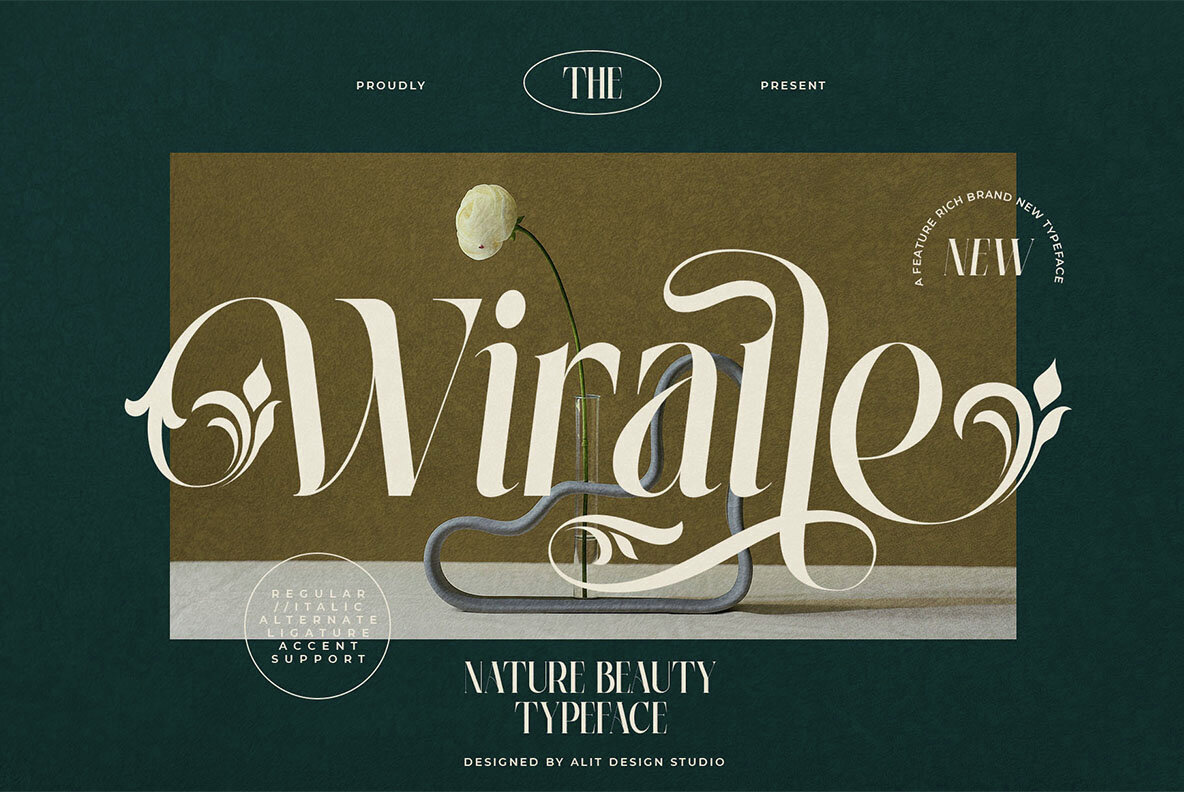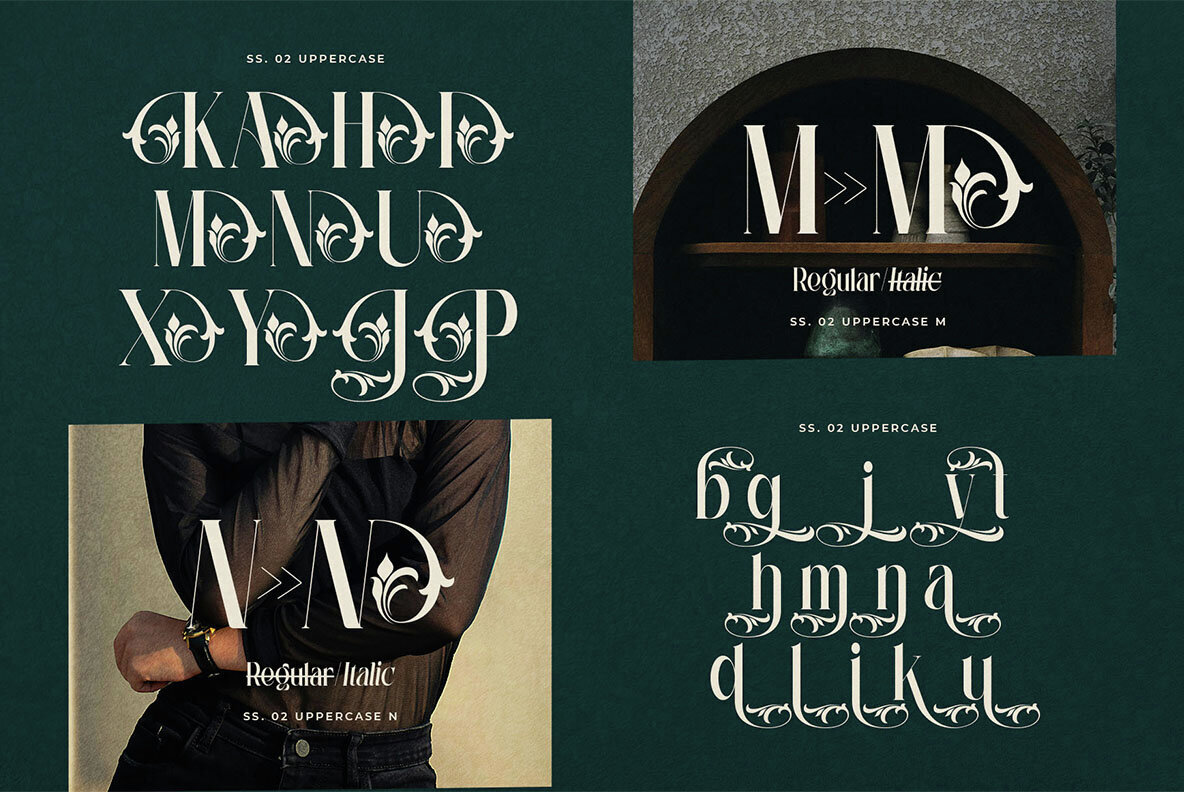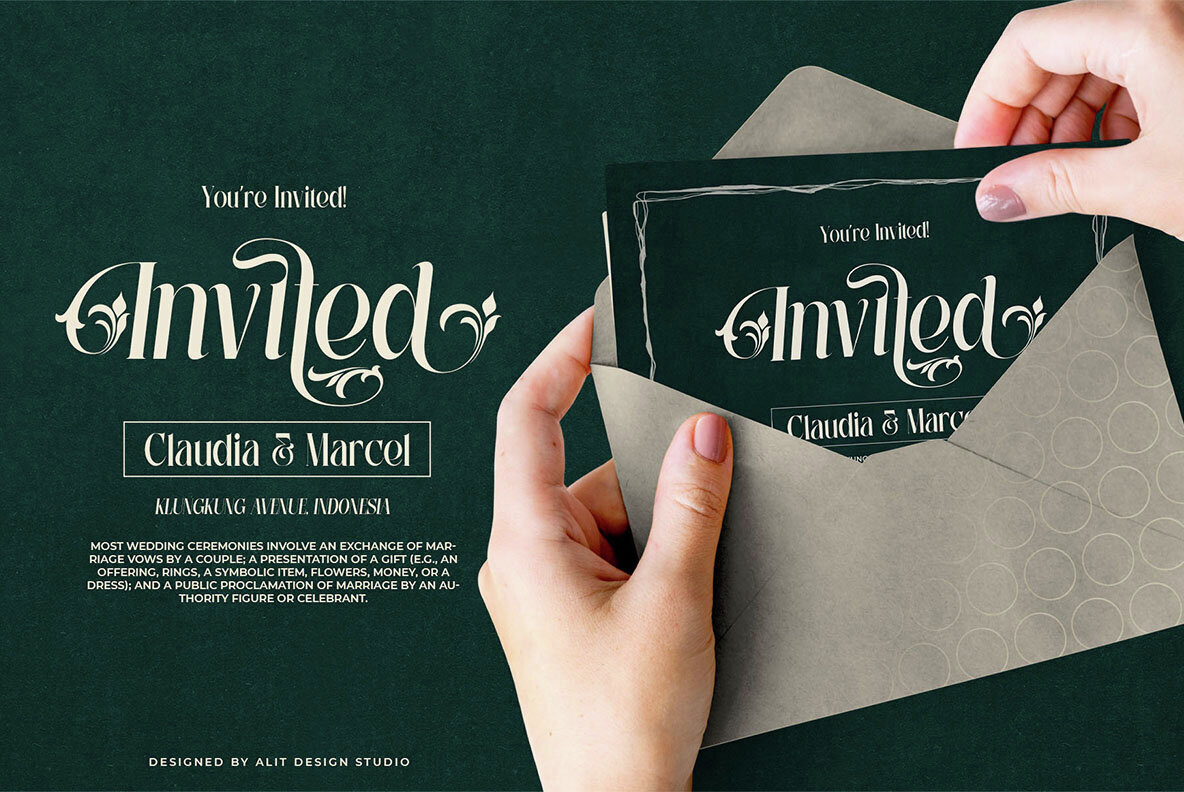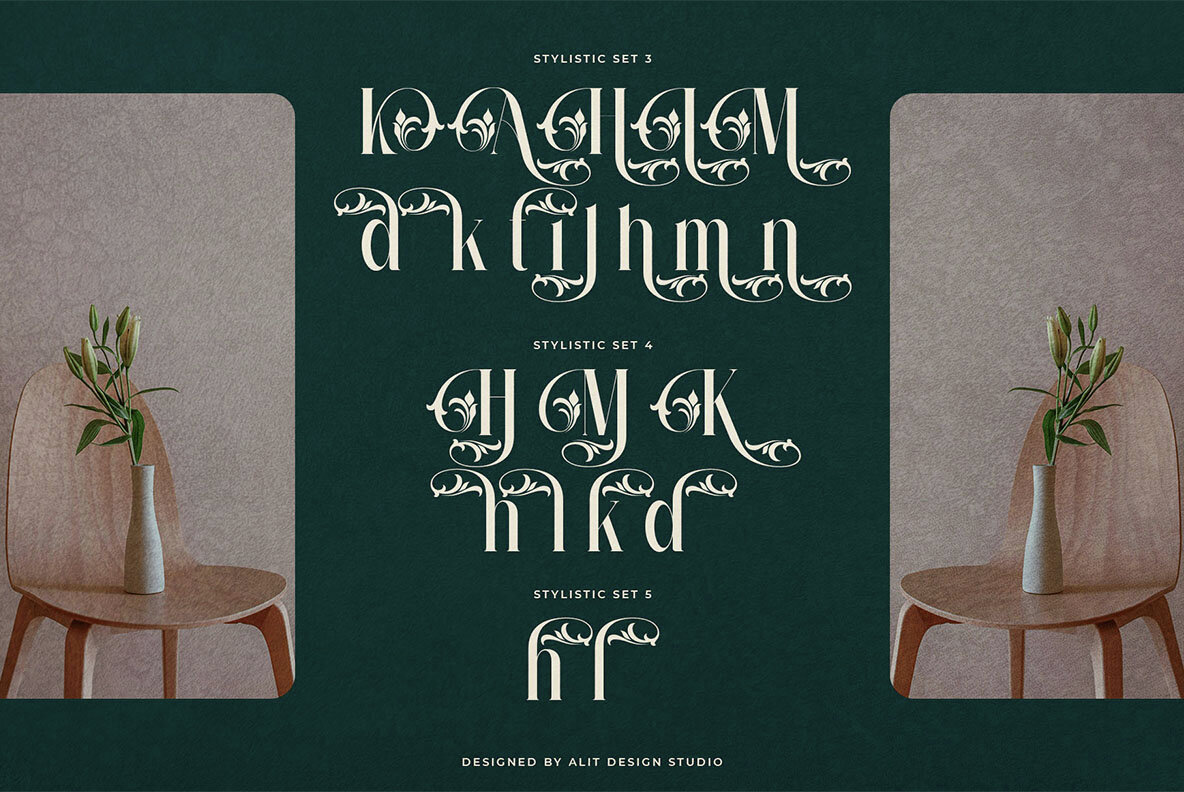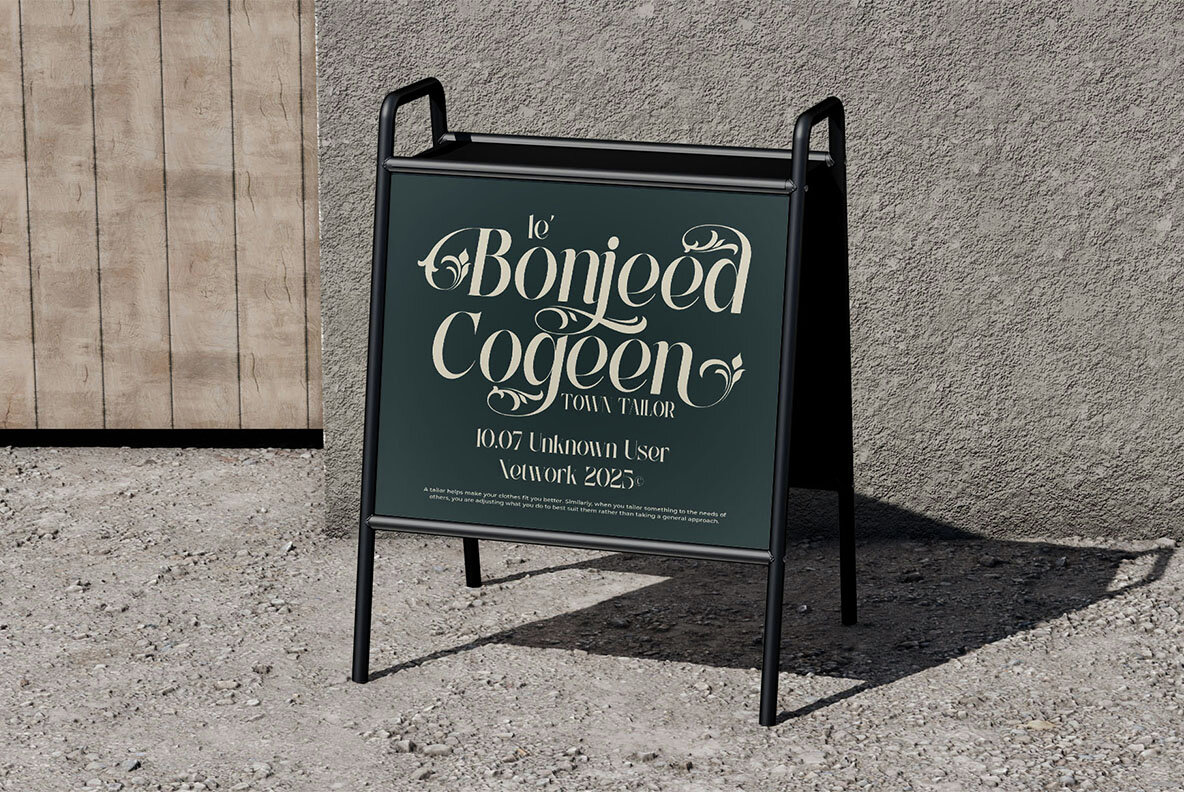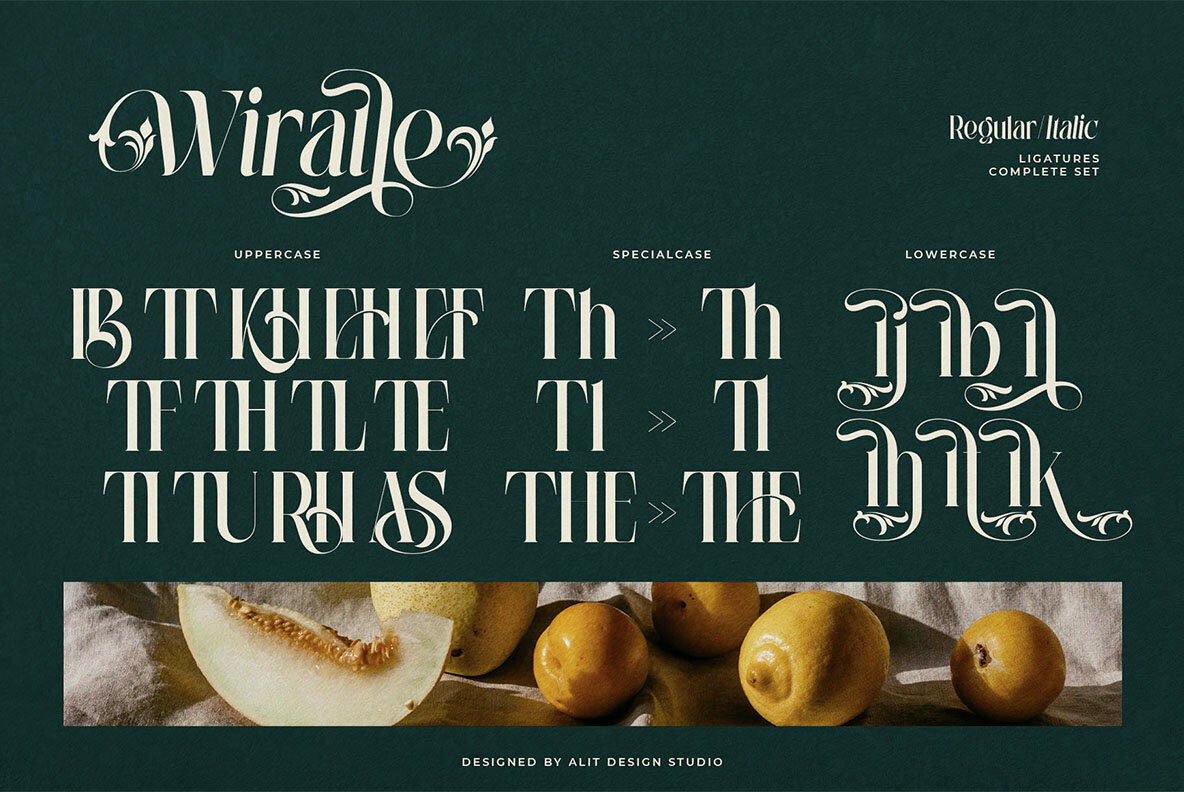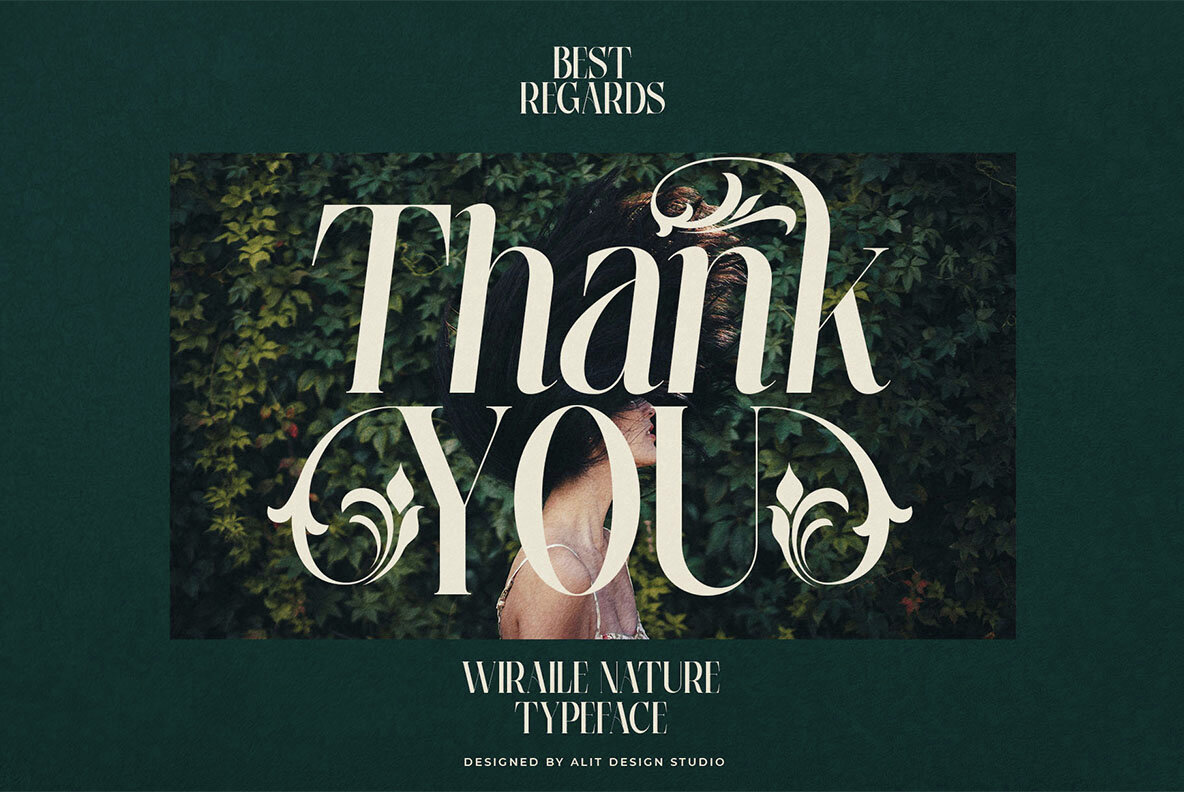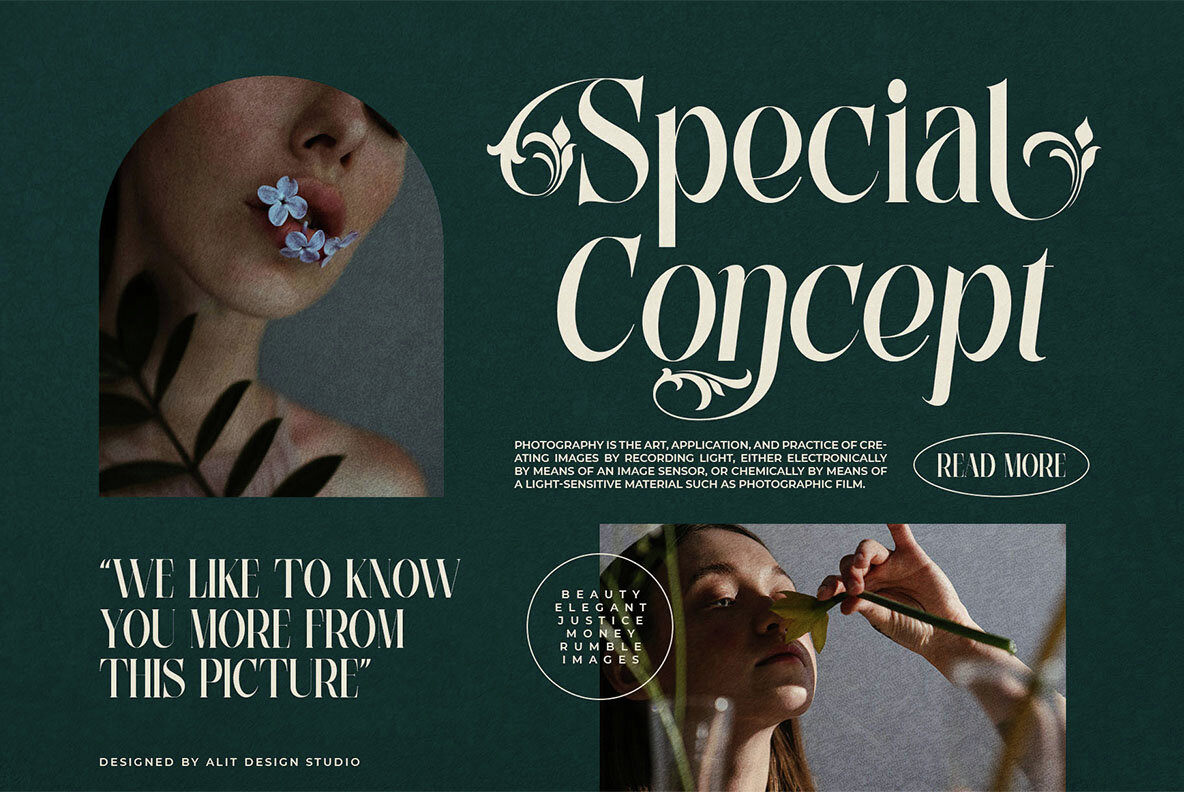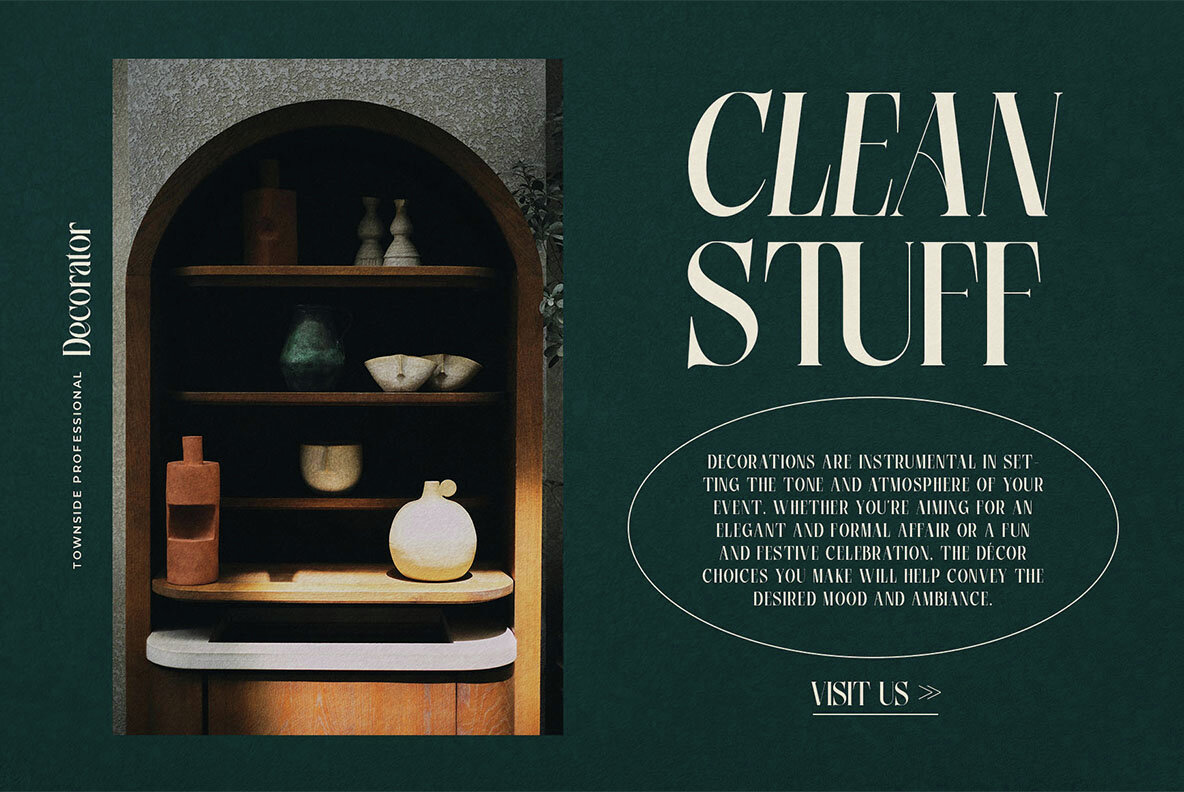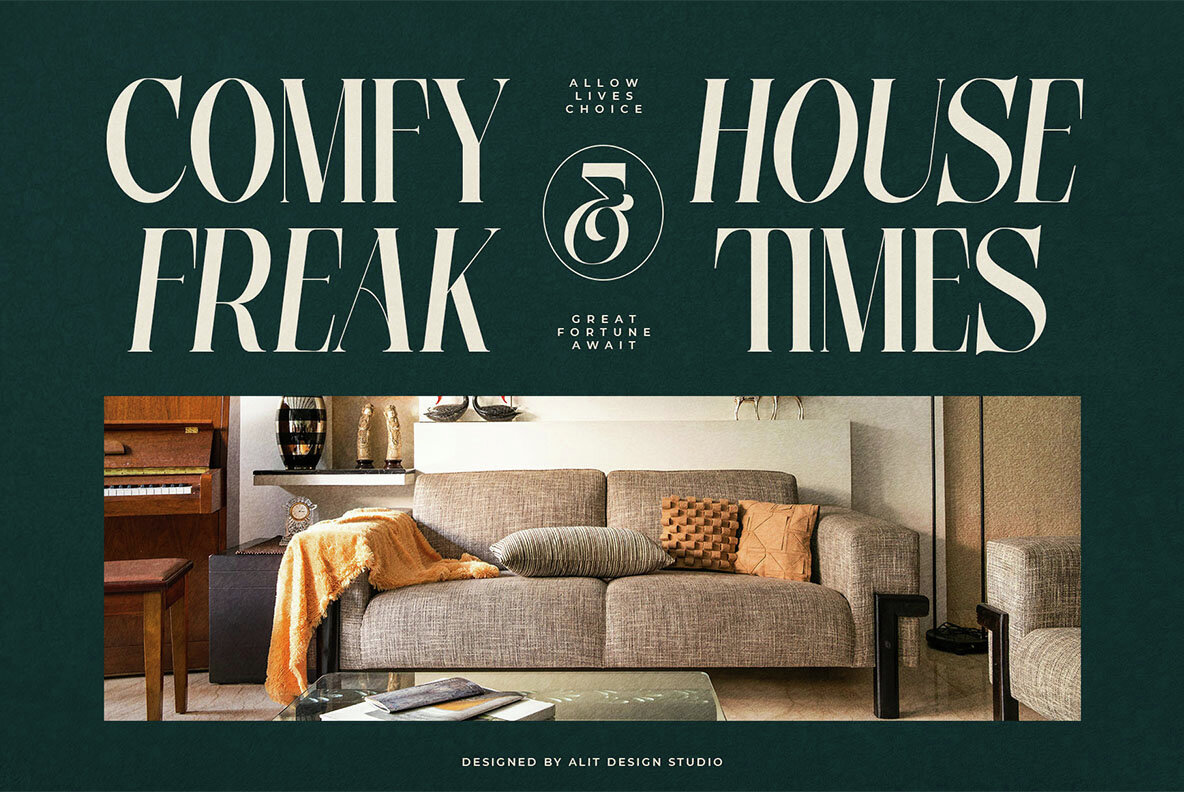
Wiraile Font
Introducing Wiraile, an exquisite serif typeface capturing nature's splendor with elegance and sophistication. Perfect for projects that demand class, this font seamlessly blends high-contrast serifs with nature-inspired charm, featuring delicate floral swashes. Its sharp lines and gentle curves embody both strength and grace, offering a robust set of alternate characters and ligatures. Transform your text into artwork with letters that flow like blossoming vines. The decorative swashes on both uppercase and lowercase letters impart a handcrafted touch. Enhance your creative projects with the timeless beauty and natural elegance of Wiraile Typeface. Let your words bloom with this captivating design.Wiraile Typeface: An Elegant Serif with a Floral Touch
Versatile Styles